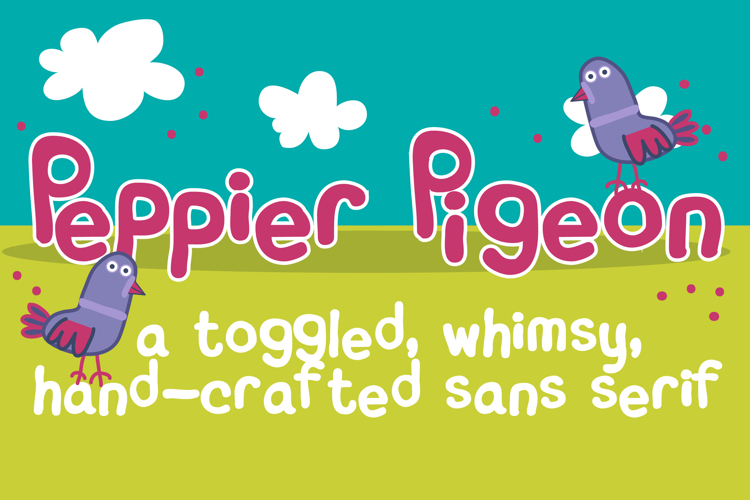
Peppy Pigeon Font Family
This hand-crafted font is a whimsical, soft, squishy sans serif with several family members sporting a lot of toggle and bounce.